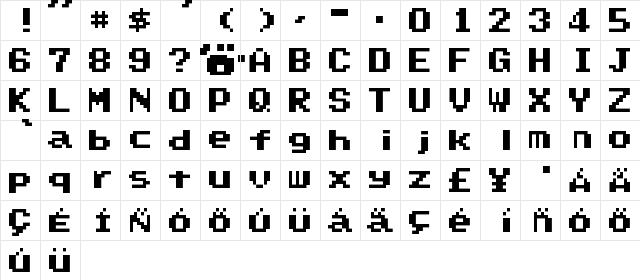
Super Mario World Text Box Regular
Design Context for Super Mario World Text Box Typeface
Super Mario World Text Box is a composed and adaptable typeface that performs quietly and consistently across a wide range of design contexts.
Pro Tip: Use Super Mario World Text Box in both headline and body roles to test its range before committing to a single application.